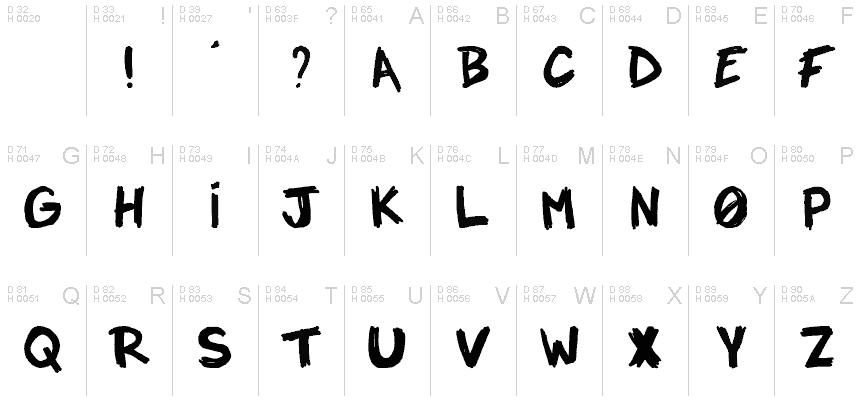
NOT A DROP
"Not a Drop" is a striking brush font that exudes a raw, dynamic energy. Its uneven, hand-drawn strokes create a captivating sense of movement and spontaneity, evoking a bold, expressive aesthetic. The font's bold, unapologetic letterforms command attention, making it well-suited for use in attention-grabbing headlines, impactful logo designs, and dynamic typographic compositions.
Embracing the irregularities and imperfections inherent in its brushstroke-inspired forms, "Not a Drop" offers a refreshing alternative to more polished, uniform typefaces. Its versatility allows it to seamlessly transition between editorial, branding, and artistic applications, lending a unique, distinctive voice to a wide range of design projects.